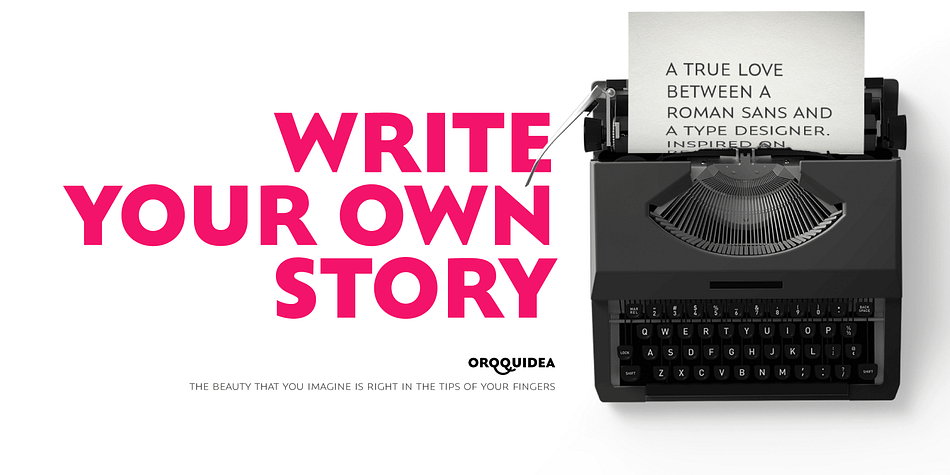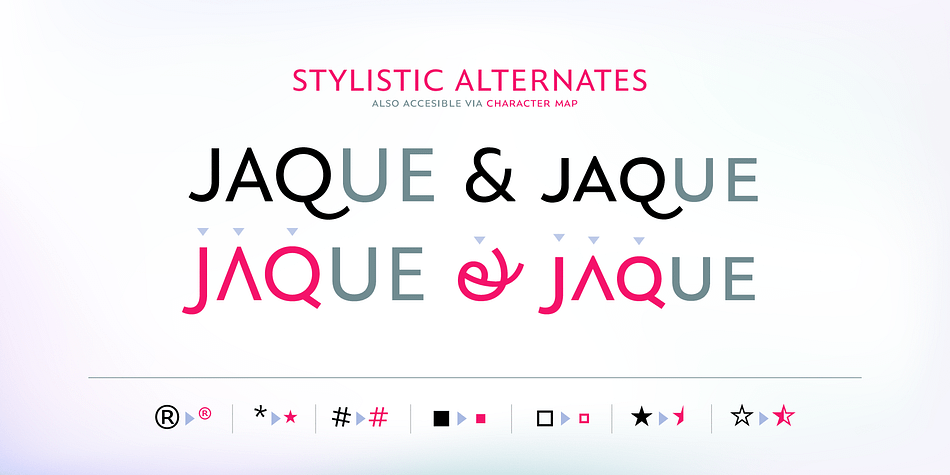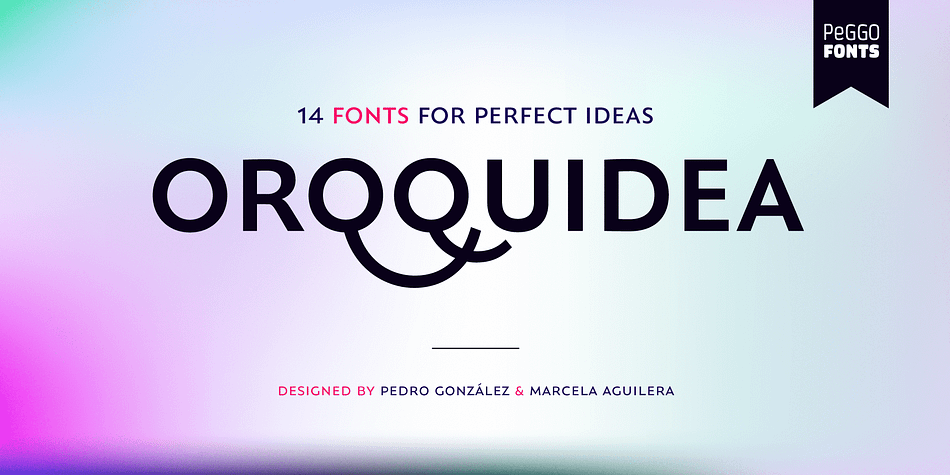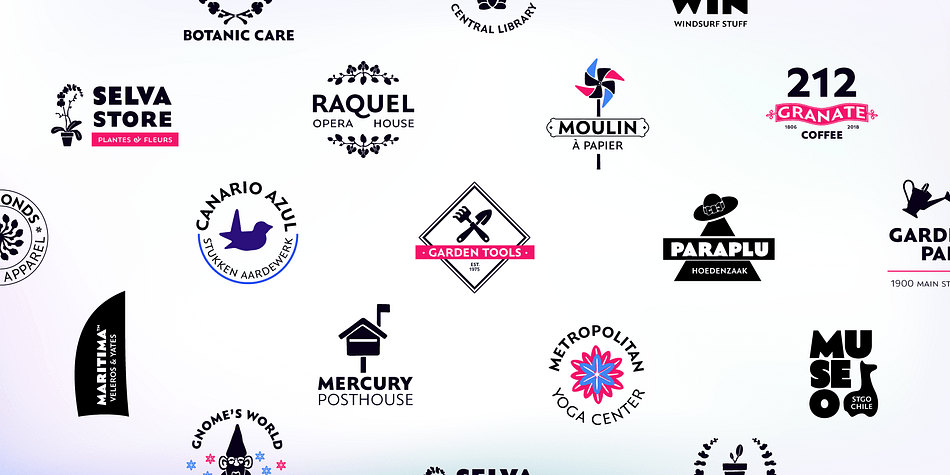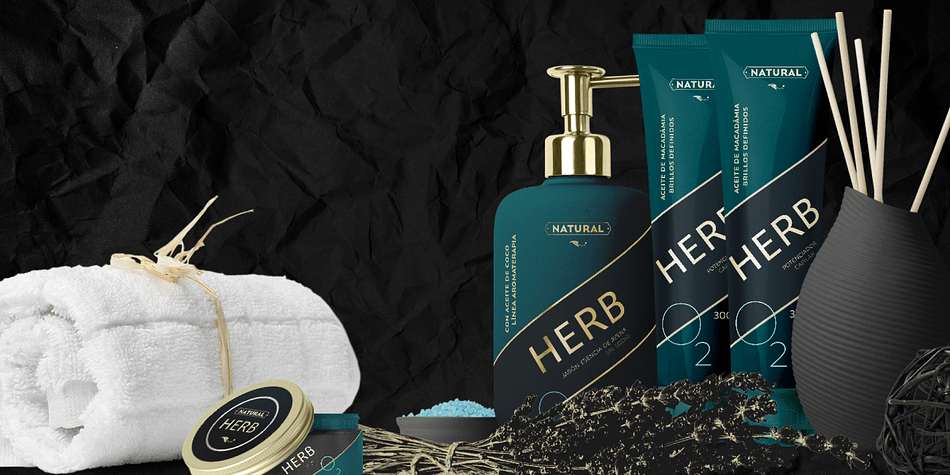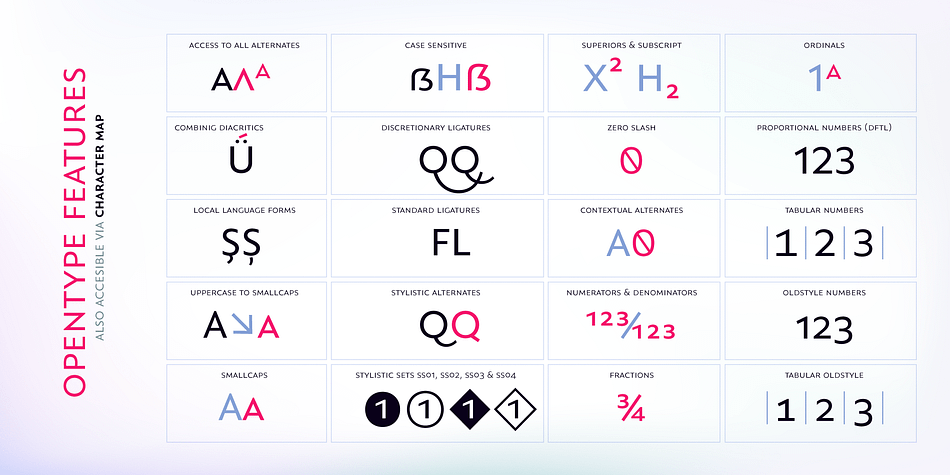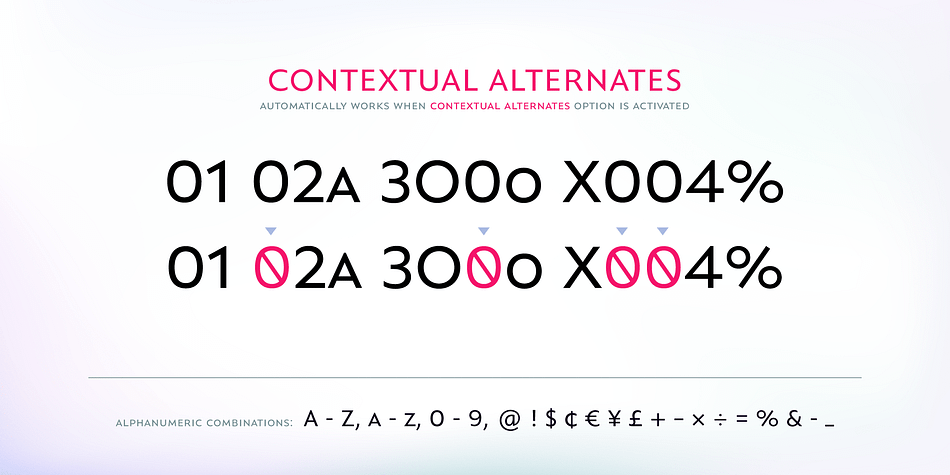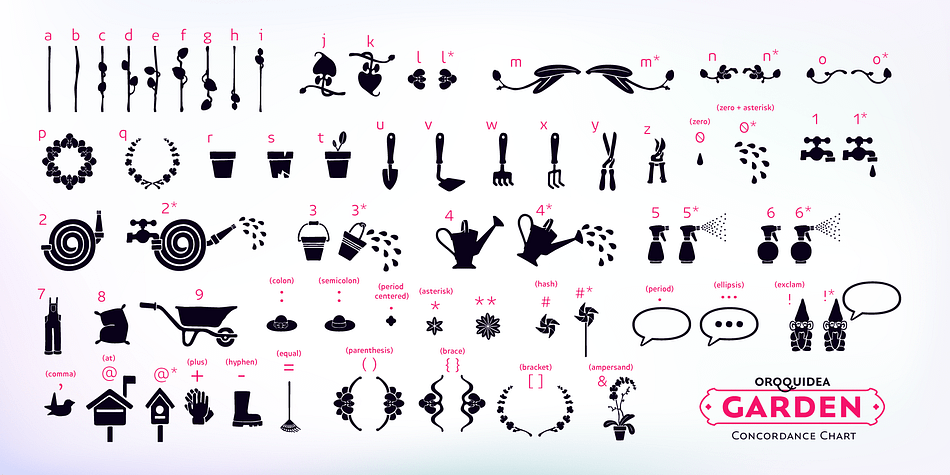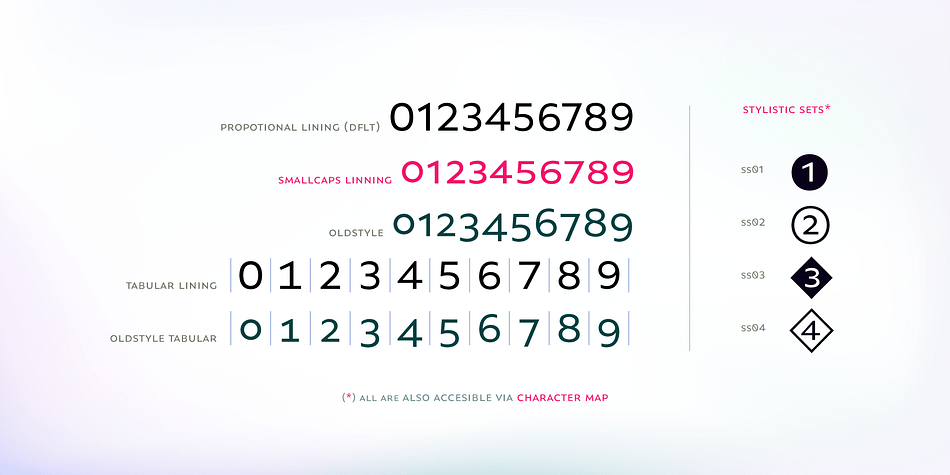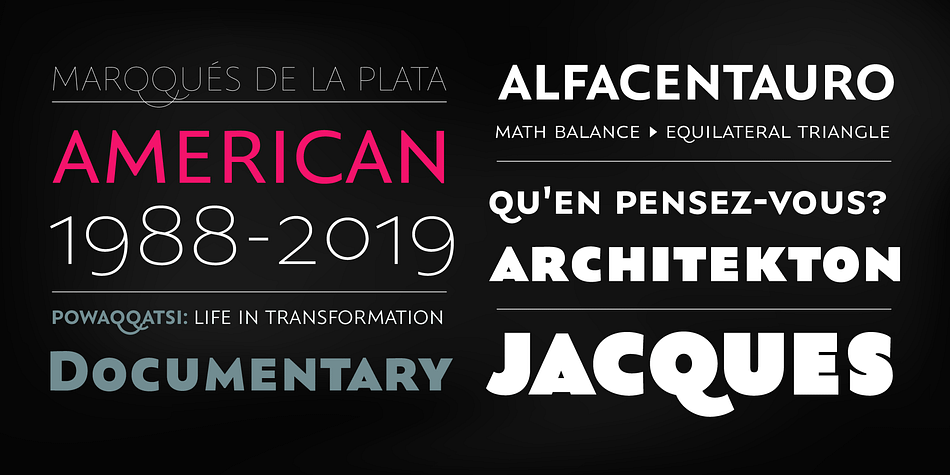
Orqquidea Sans is a dingbat and display sans font family. This typeface has fourteen styles and was published by PeGGO Fonts.
Low contrast and clean Roman Sans with capitals based on the classic Capitalis Monumentalis proportions with uniform and modern SmallCaps, with a subtle script touch on some curved strokes, that give it a less hard feel, more organic and friendly look.
The design idea born on 2013 from Roman Schemme studies, where new version of Legan and other Roman typeface projects was based on too.
Orqquidea was developed in 12 sizes with 659 glyphs each enhanced with professional opentype features (aalt, ccmp, locl, subs, sups, numr, dnom, frac, ordn, lnum, pnum, tnum, onum, c2sc, smcp, case, dlig, liga, zero, salt, calt, ss01, ss02, ss03, ss04), plus a complementary Orqquidea Framed version with 226 glyphs and a Orqquidea Garden version that include floral ornaments and related dingbats with 102 glyphs.
It can easily adapt to print and digital environments ideal for fashion branding and corporate purposes, magazine and book headlines and titles, cosmetic label design and even on contents with a modern and artistic air.